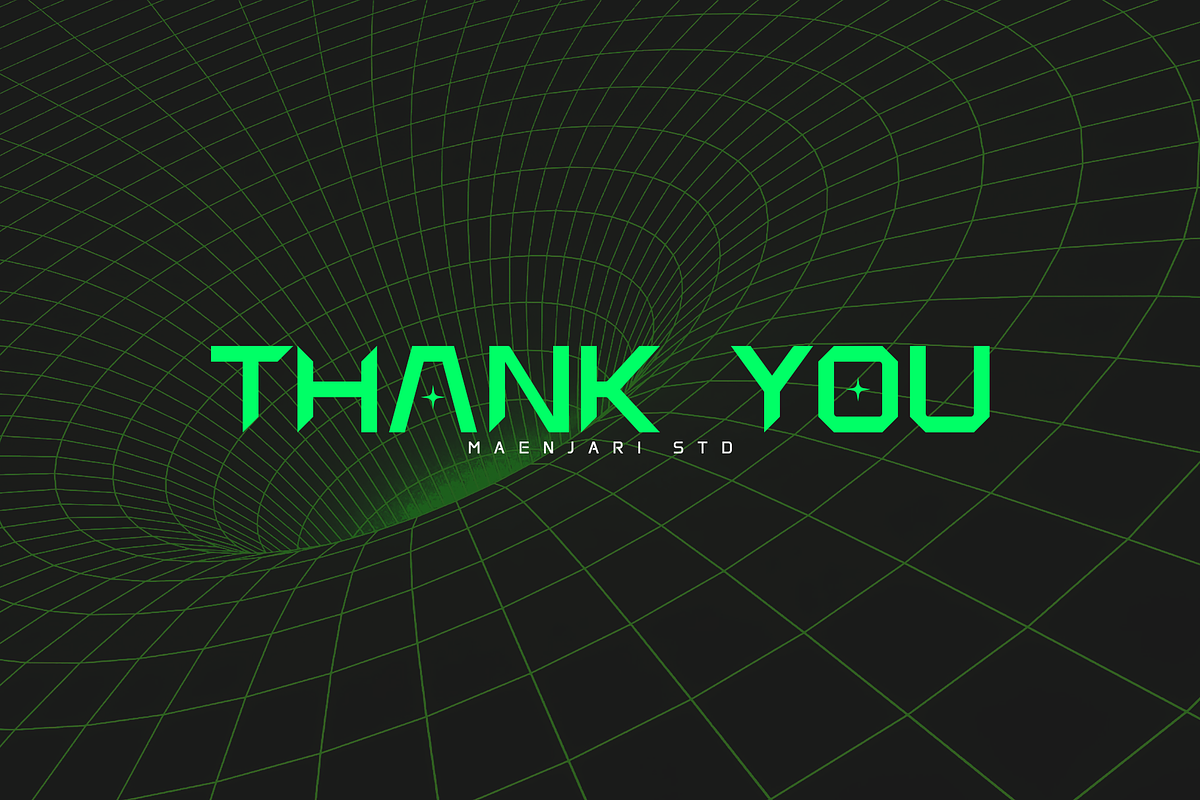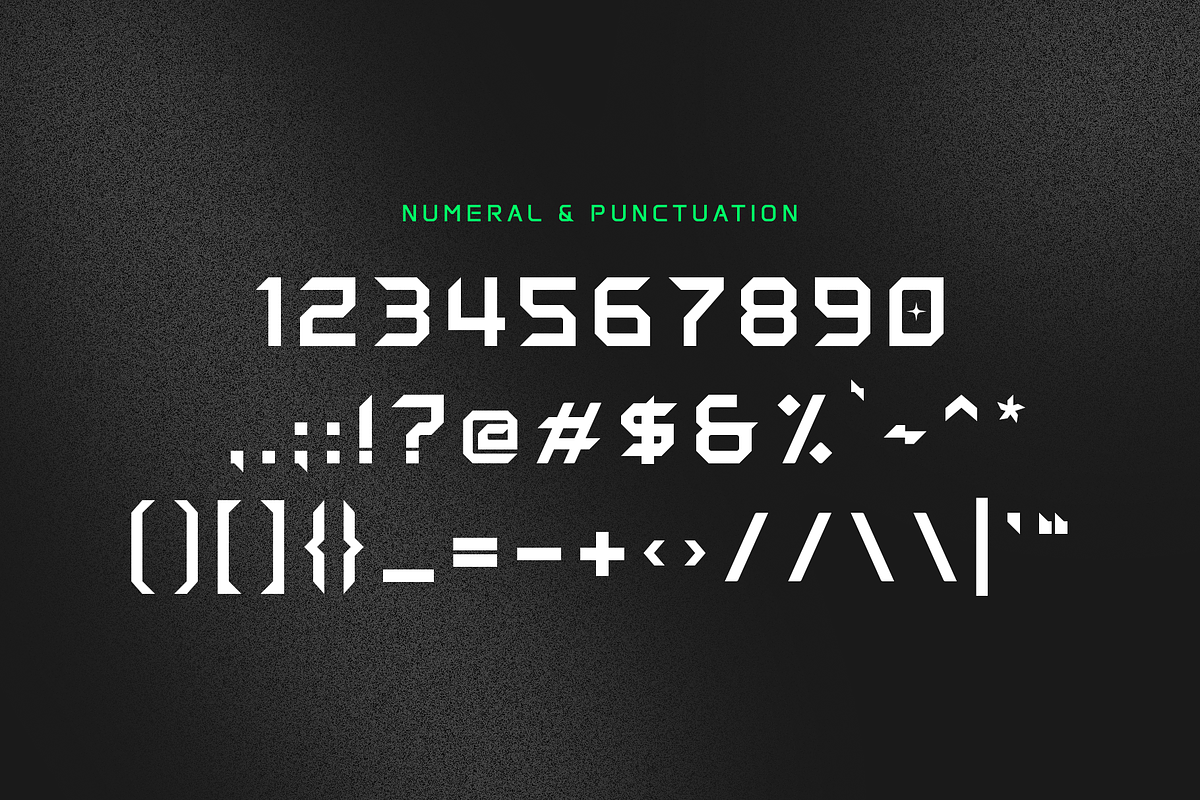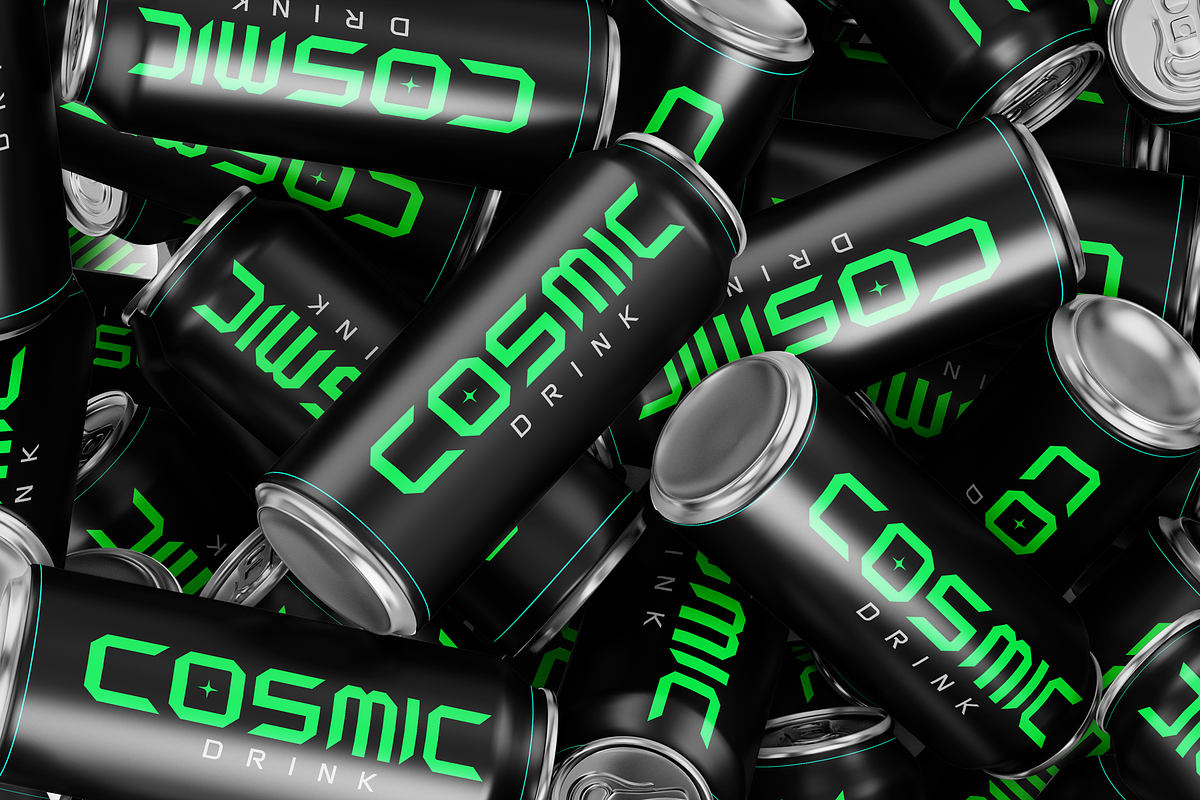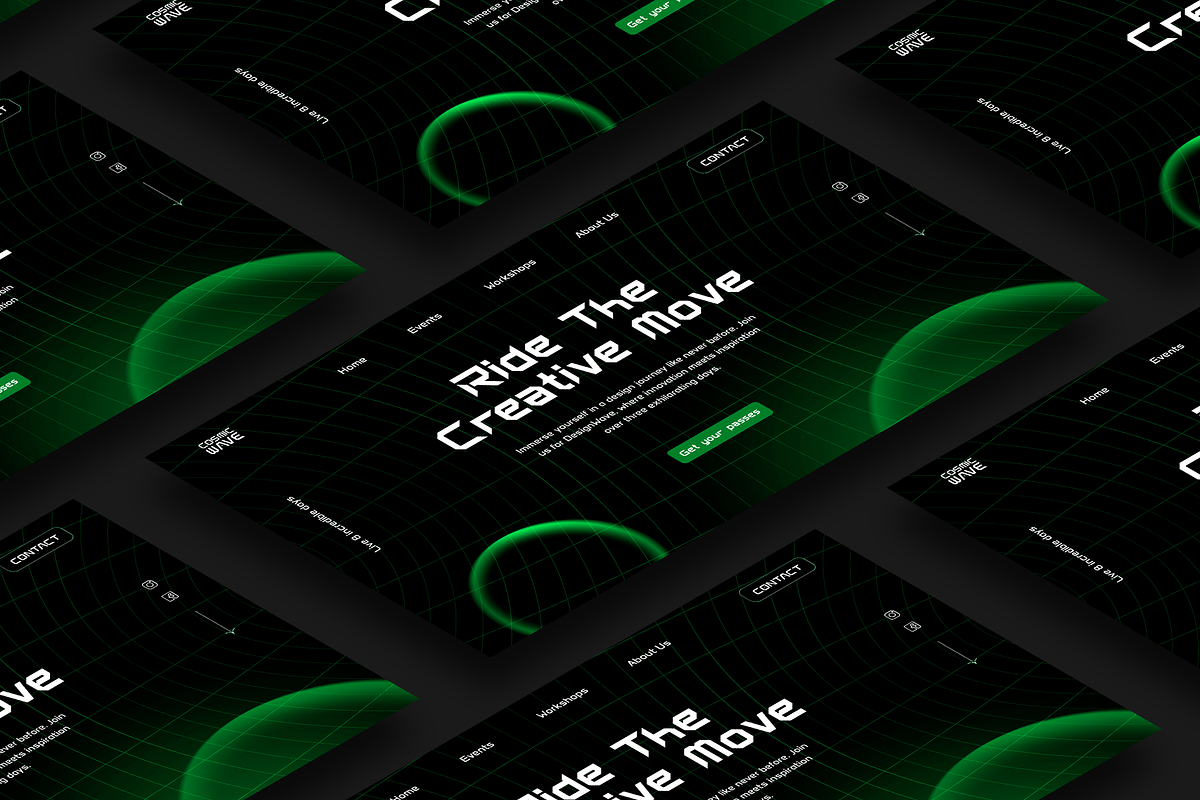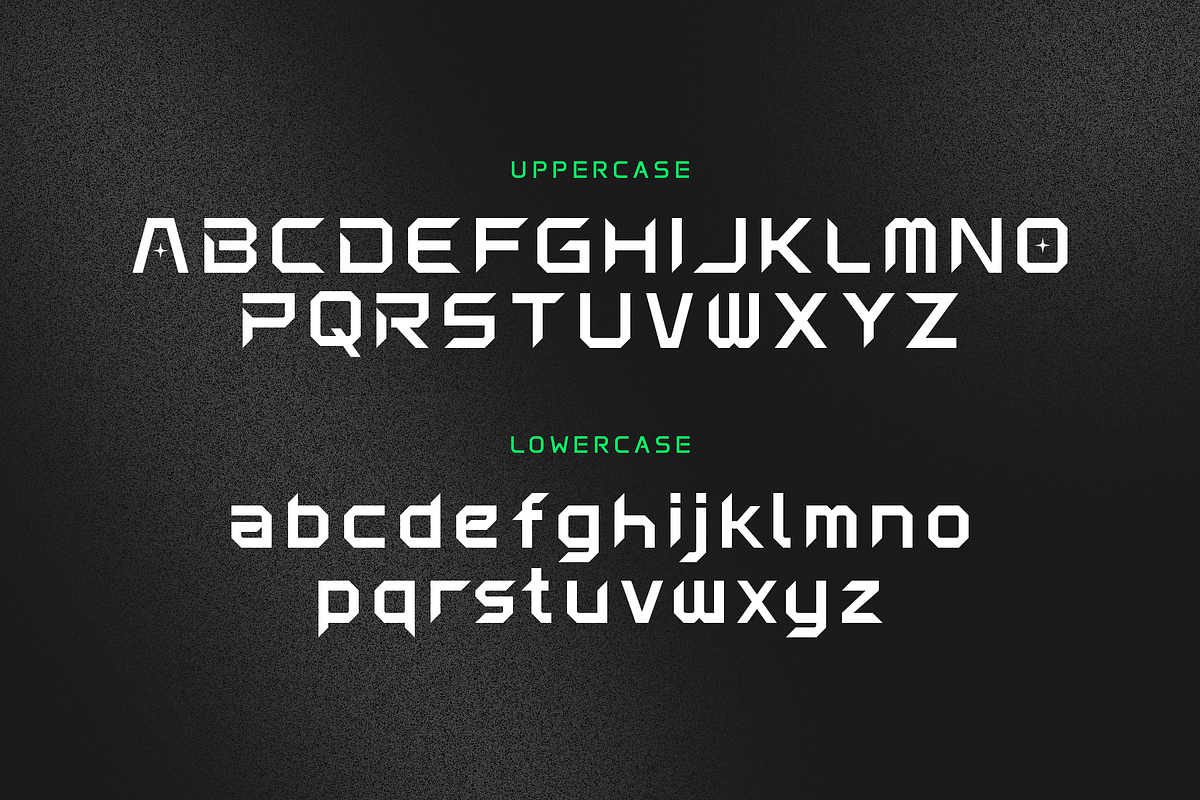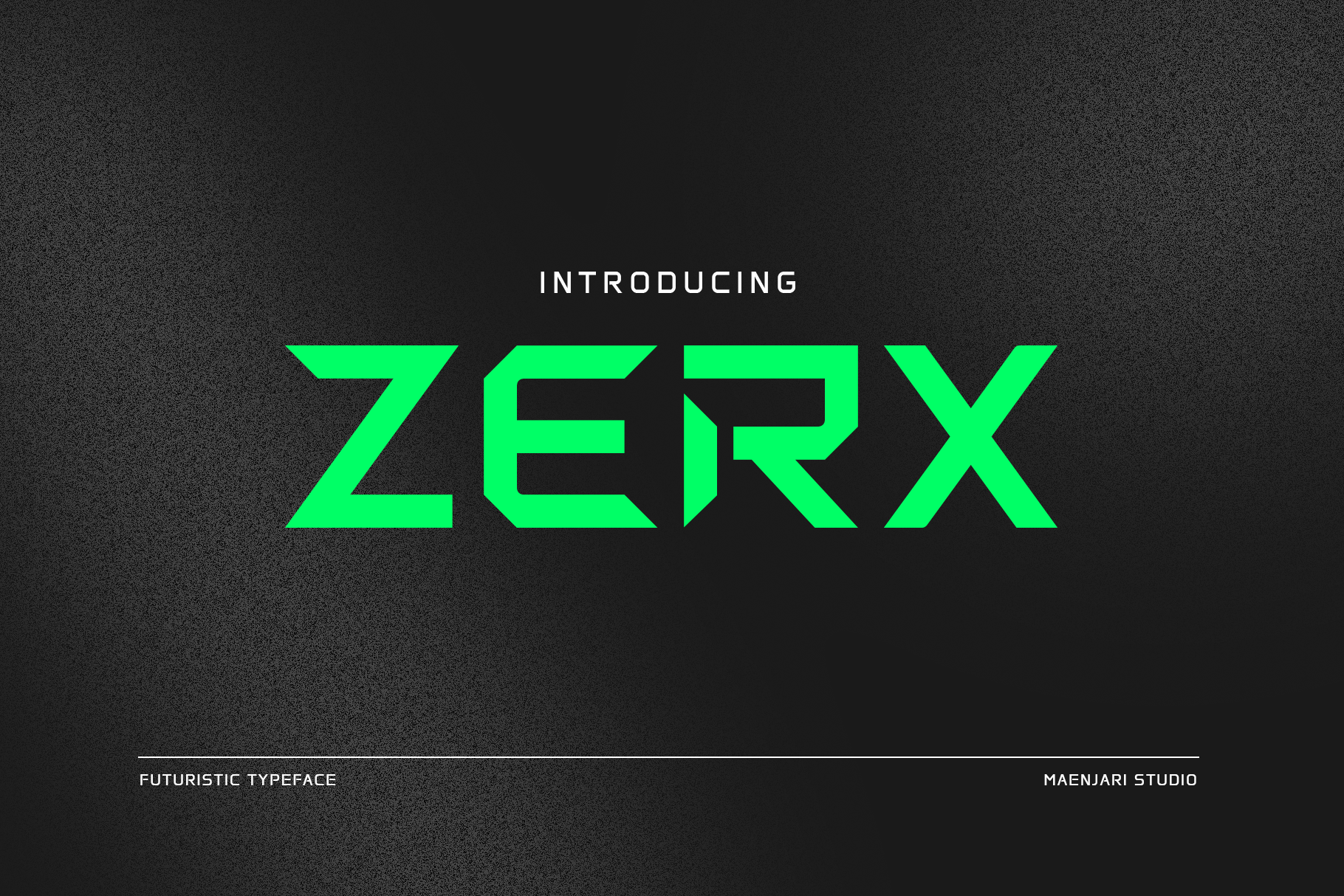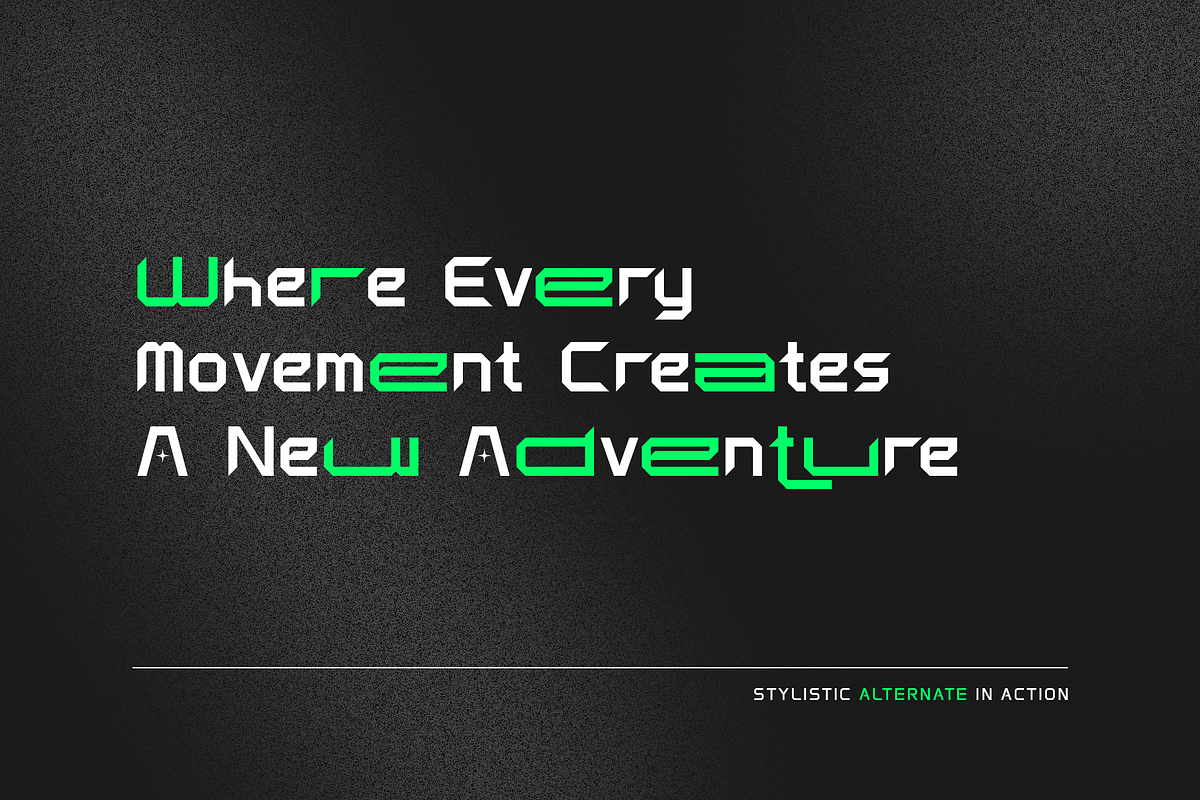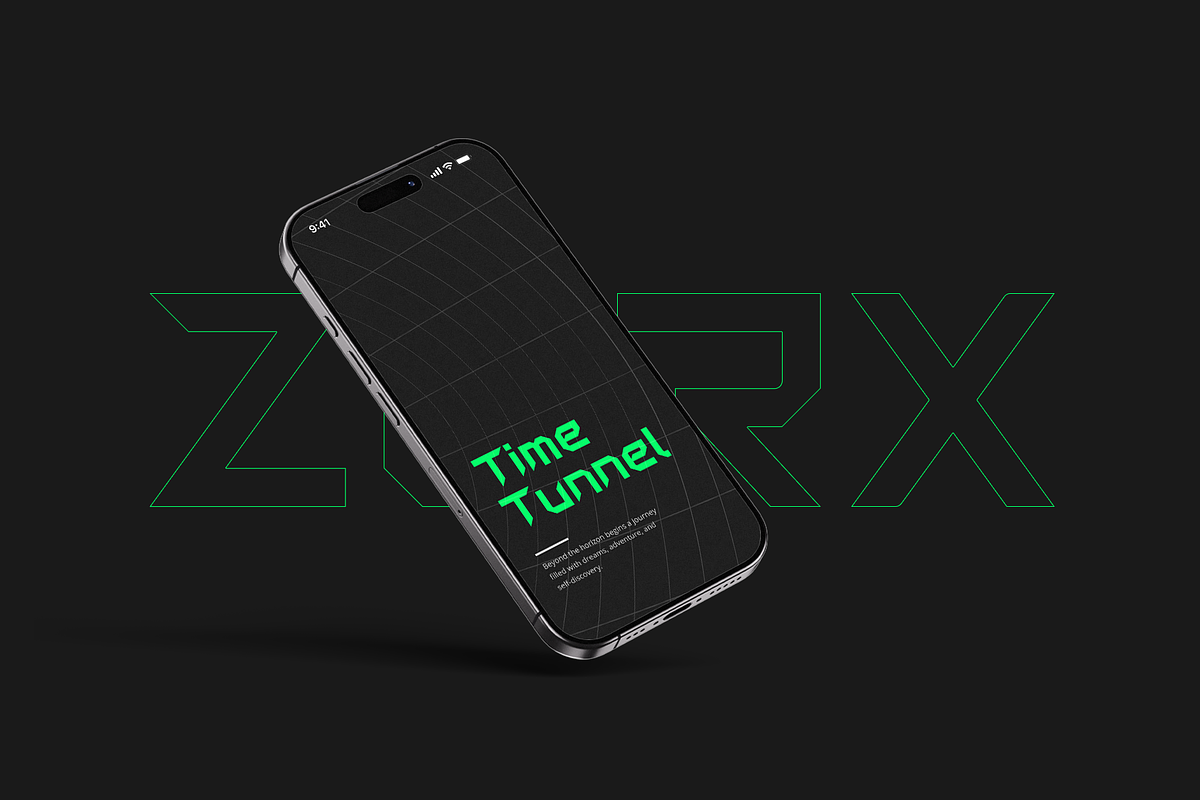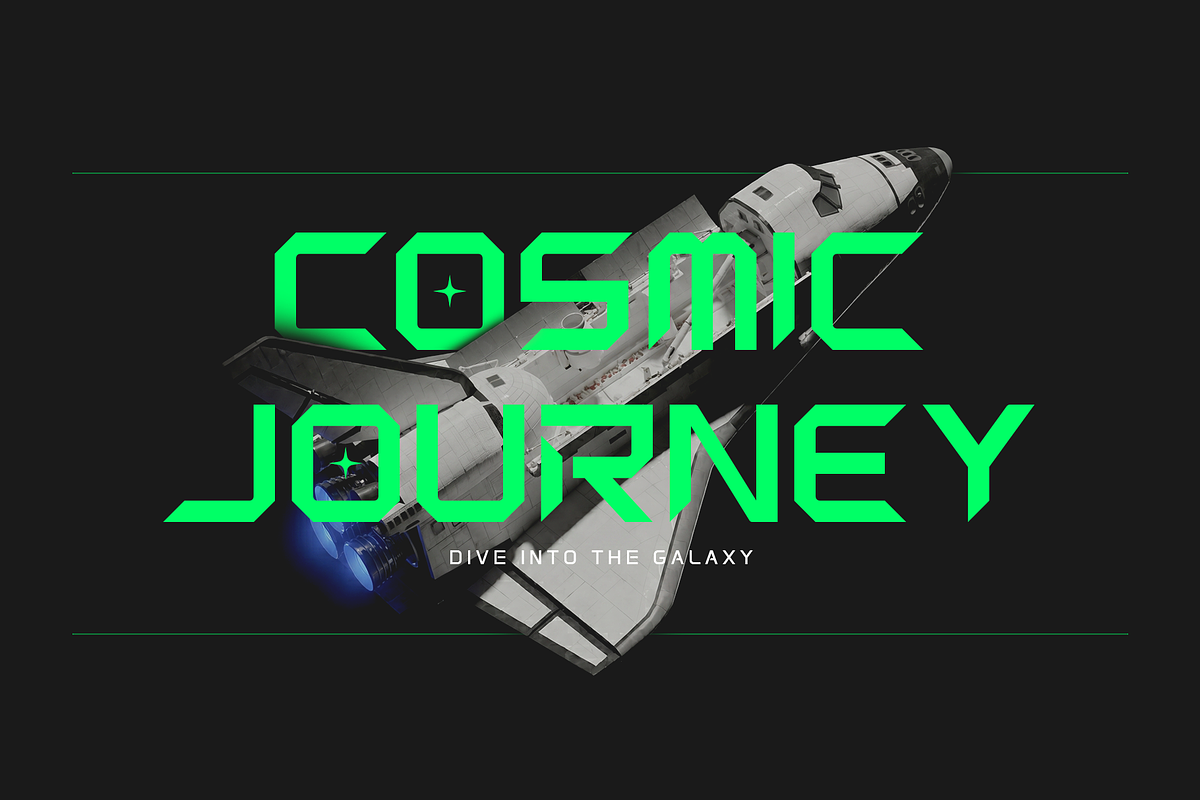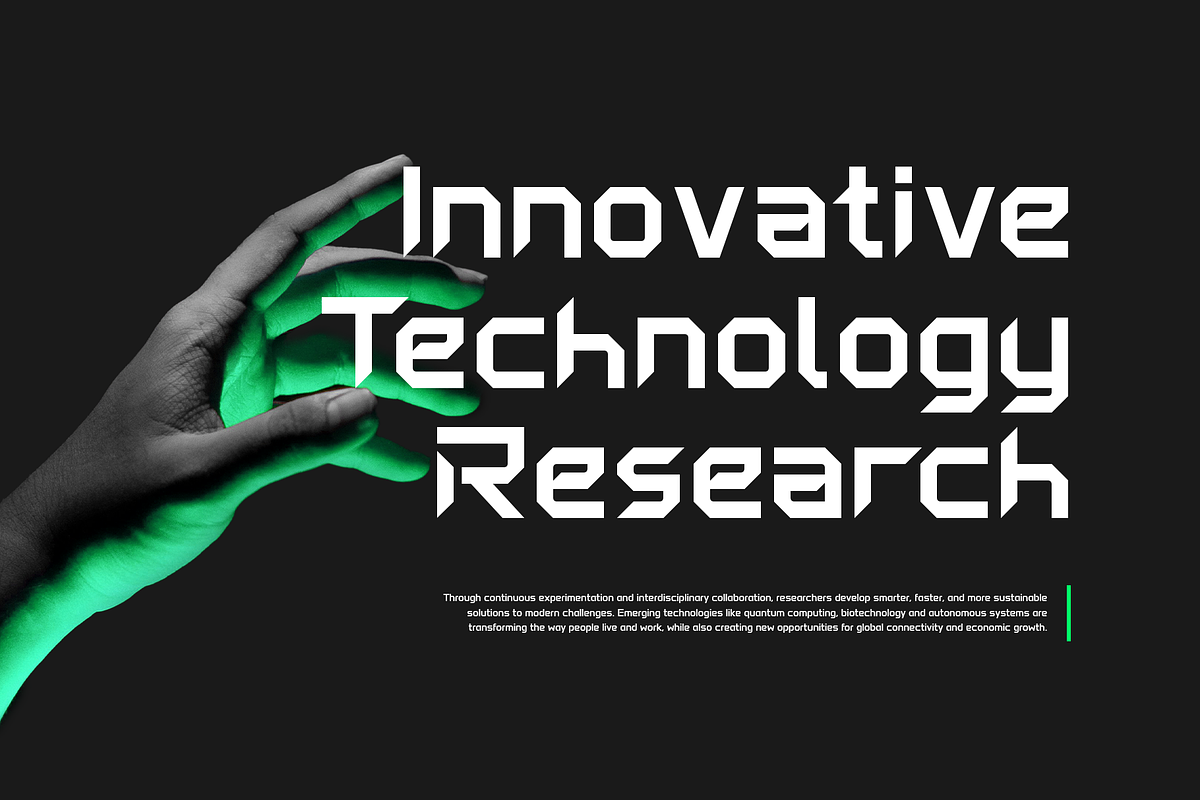
Zerx - Futuristic Display Typeface
Step into the Future with Zerx - Ultimate Tech Display Font
Propel your designs into the next millennium with Zerx, a premium display typeface meticulously engineered for high-tech, sci-fi, and cyberpunk aesthetics. Featuring heavy geometric structures, razor-sharp technical cuts, and an imposing solid presence, Zerx commands the visual space with industrial precision.
Whether you are creating advanced UI/UX dashboards, cinematic movie titles, tech apparel, automotive branding, or immersive gaming graphics, Zerx delivers an uncompromising futuristic identity. Designed for maximum visual impact as a commanding headline, it beautifully balances aggressive geometry with sharp legibility.
Full Character Layout: Uppercase, Lowercase alternates, Numbers, and Punctuations.
Advanced Tech Geometry: Unique sharp corner cuts optimized for display usage.
Multilingual Support: Ready for global design projects.